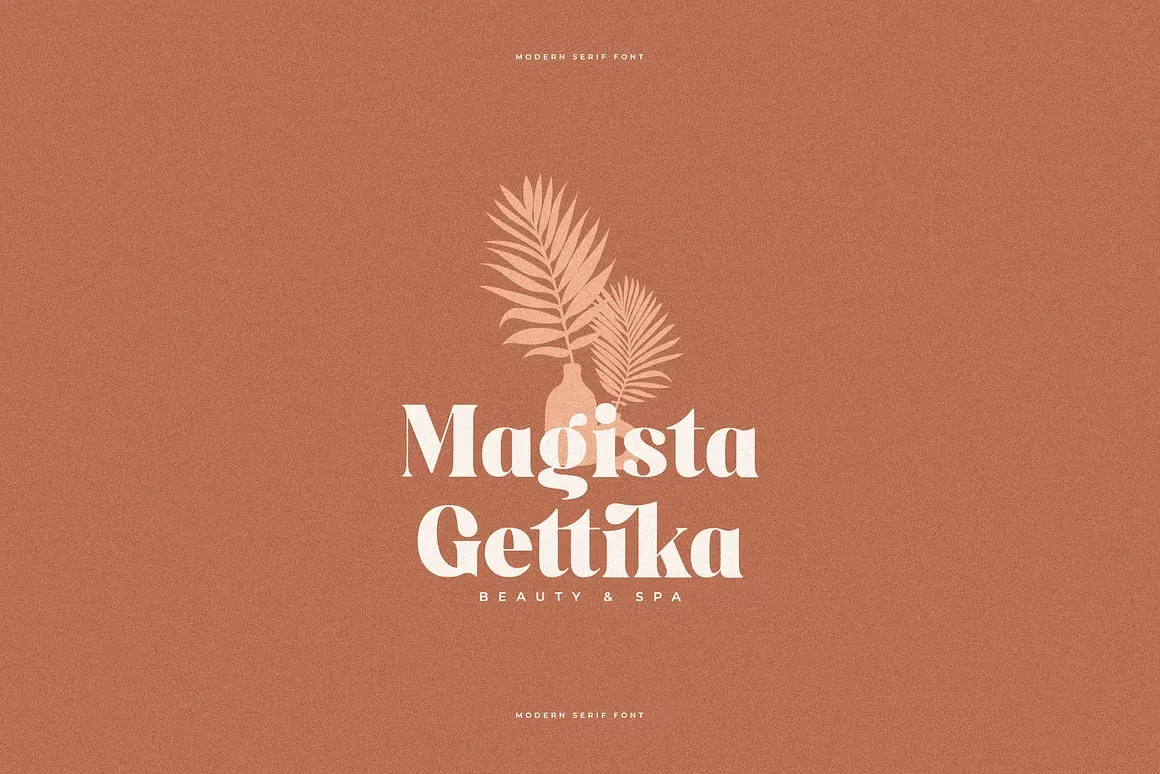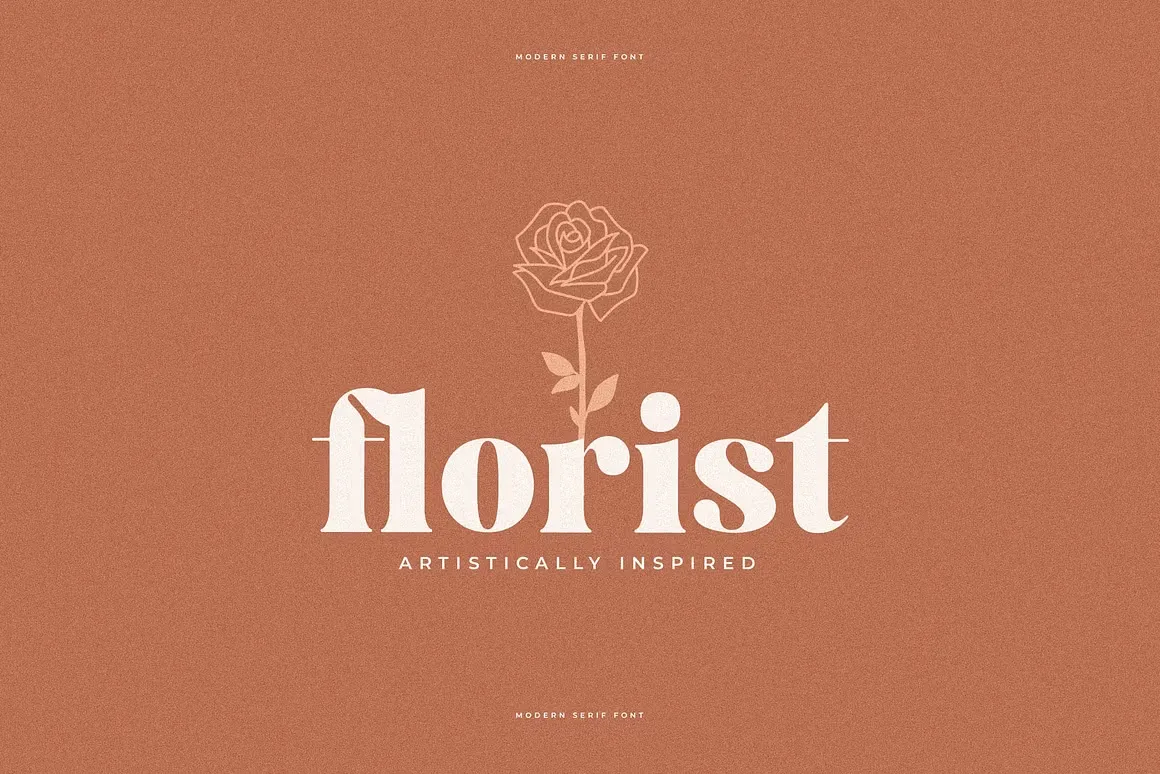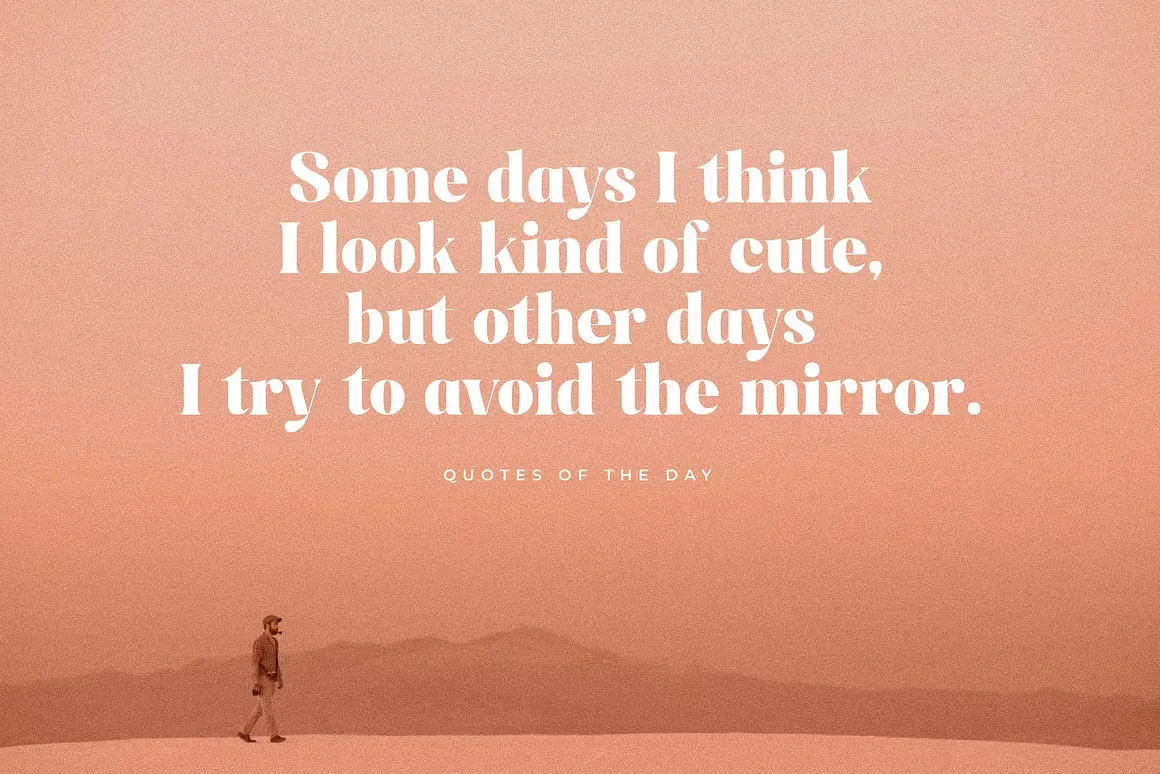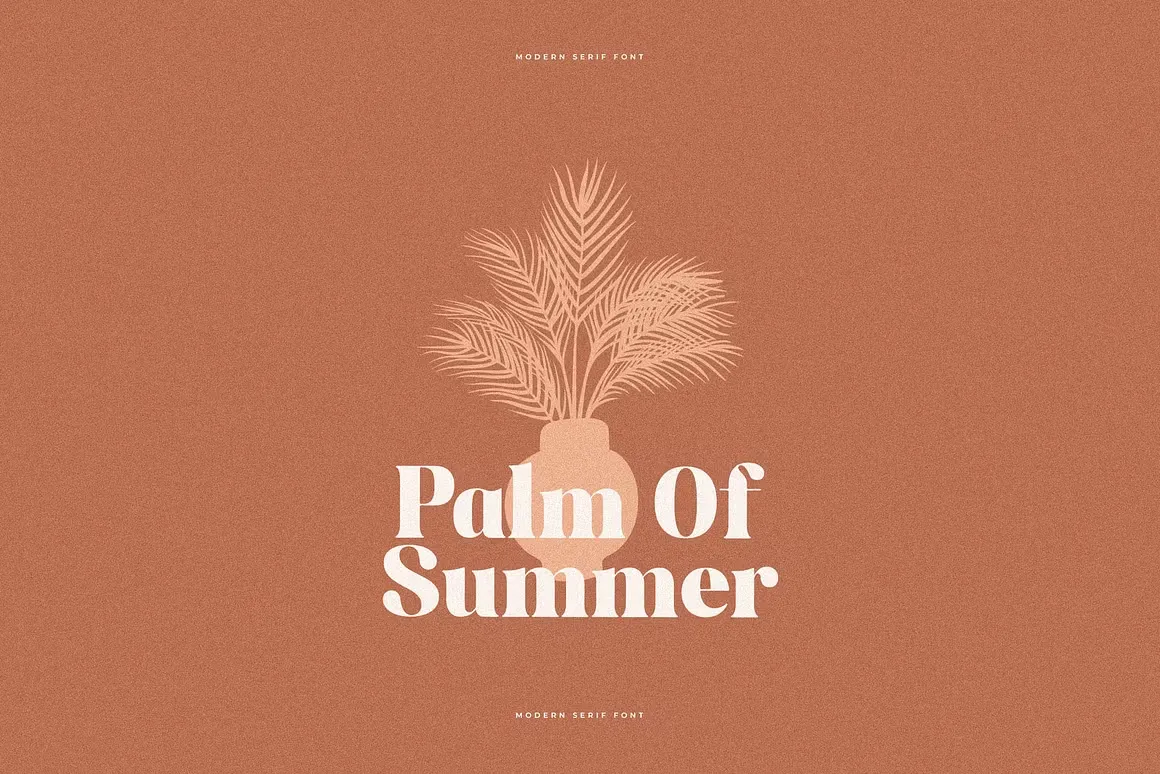
About Ragitta Font
I’m a full-time typographer and graphic designer, and fonts are my daily obsession. I’m always on the lookout for something that blends classic elegance with modern flair, and Ragitta Font hit that sweet spot. I found it while working on a high-end branding project for a fashion label. After trying a few serif options, Ragitta stood out immediately. The flow of the letters, the balance in spacing, it felt tailored for luxury design.
This review isn’t just for the sake of writing one. I used Ragitta Font in real client work. The results? It elevated the whole identity. That’s why I had to talk about it.
What Is Ragitta Font and Who Designed It?
Ragitta is a modern and classic serif font created by Storytype Studio, a name well-known in the design space. The font mixes timeless serif structure with a modern edge. That’s hard to pull off. But Ragitta manages it with confidence.
The Ragitta typeface was clearly crafted with detail. It holds its own in bold headlines and soft branding alike. Its shape has a certain luxury. Every curve and cut feels intentional.
Storytype Studio, the designer, is known for producing elegant typefaces perfect for upscale brands, magazines, fashion materials, and digital content. Their work shows an understanding of how fonts behave across different platforms, whether in print or on screen.
When you see font by Storytype Studio, expect a polished, versatile product. Ragitta is no exception. It’s not just a font. It’s a full font family with the kind of personality that fits creative branding perfectly.
Features of the Ragitta Typeface
Ragitta Font is packed with features that make it incredibly usable. First off, you get full support for uppercase and lowercase characters. This allows you to mix cases creatively without the font breaking visual flow.
It includes numerals, punctuation, and OpenType-standard accents, so it’s multilingual-ready. You also get stylistic sets, ligatures, and alternatives, which let you tweak letters just enough to give each project its own identity.
Ragitta’s unique style and modern look make it more than just a typeface. It’s a design tool you’ll reach for again and again.
Ragitta fits best where elegance and presence matter. Think luxury logos, magazine titles, fashion brand identity, or high-end clothing websites. It’s not just about looks. Ragitta has the structure to carry bold statements and the softness for subtle accents.
I used it in a branding package for a designer clothing brand. Headlines in Ragitta paired with minimal body text gave the whole design a sharp, polished feel. Whether you’re creating print ads or digital banners, the serif modern and classic typeface adapts with ease.
Its modern and classic serif font structure also works for movie titles, book covers, and quote graphics. The letterforms stand out without being loud. That balance is rare.
Whether you’re styling letters, working on a commercial project, or just designing for fun, Ragitta helps your work stand out without overdoing it.